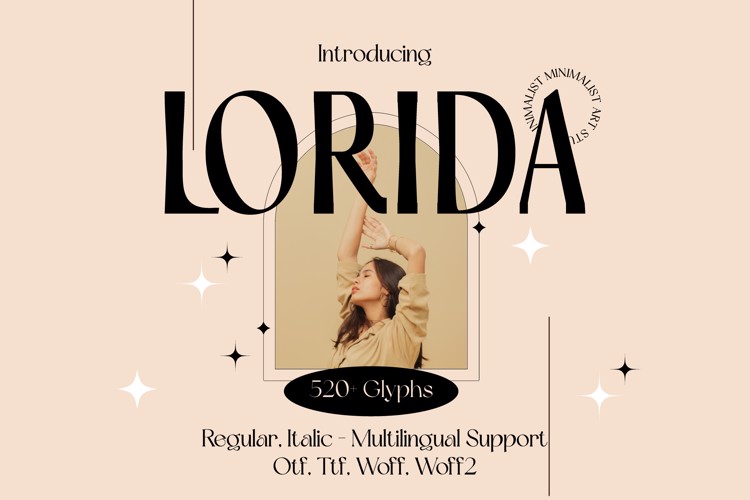
LORIDA Font
๐จ Font Name: Lorida by Minimalist Art Studio
๐จ Font Description: Lorida is a decorative sans serif with multilingual supportโperfect for expressive branding, editorial charm, and creative packaging.
โ Complete Latin set + multilingual diacritics
โ Alternates, stylistic sets & ligatures
โ Numbers, small caps, and extended punctuation
โ Bonus italics and family styles